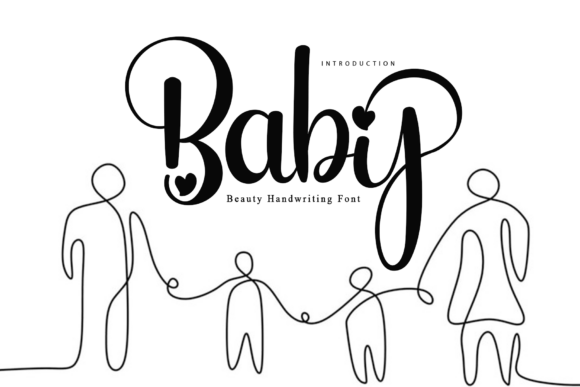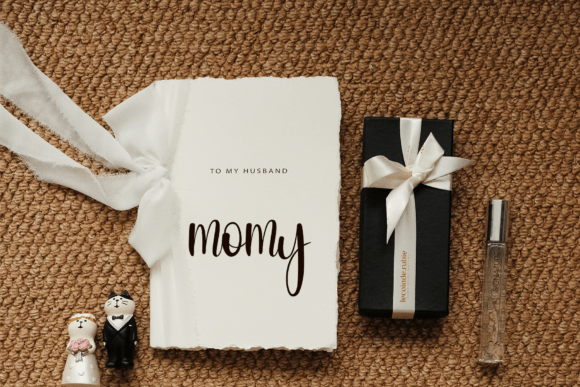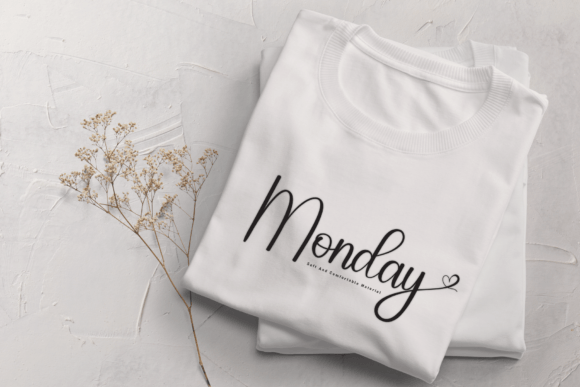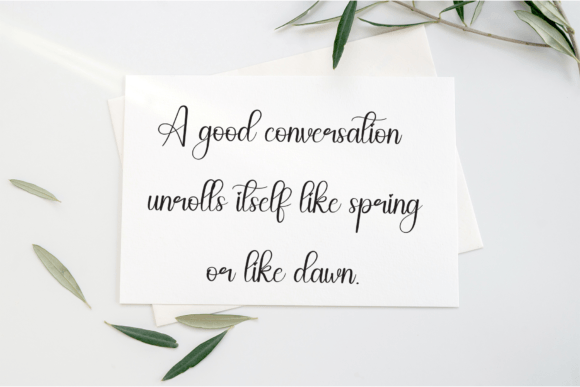
About the Baby Font
Presenting Baby Font, a unique and stylish typeface that will make your work stand out. Baby is a gorgeous handwritten font. Fall in love with its incredibly versatile style and use it to create gorgeous wedding invitations, beautiful stationary art, eye-catching social media posts, and much more!
Baby’s elegant yet playful style is ideally suited for projects requiring a touch of handwritten charm. It excels in headlines, short-form text on invitations, social media graphics, and branding elements where a personal touch is desired. Avoid using it for large blocks of body text or UI elements; its delicate nature isn’t legible at smaller sizes or in continuous paragraphs.
Pairing Baby with a clean sans-serif like Montserrat or a modern geometric sans-serif like Futura creates a balanced contrast, highlighting Baby’s organic quality. For a more traditional feel, consider pairing it with a classic serif like Garamond or a slightly more informal serif like Playfair Display. These pairings offer excellent readability while maintaining a cohesive design aesthetic.
Its personality is best described as friendly and approachable, conveying a sense of warmth and handcrafted quality. Brands focused on artisan goods, weddings, children’s products, or feminine-oriented businesses would find Baby particularly effective in their visual identity.